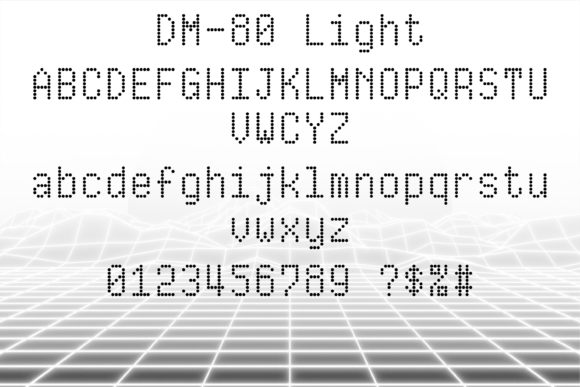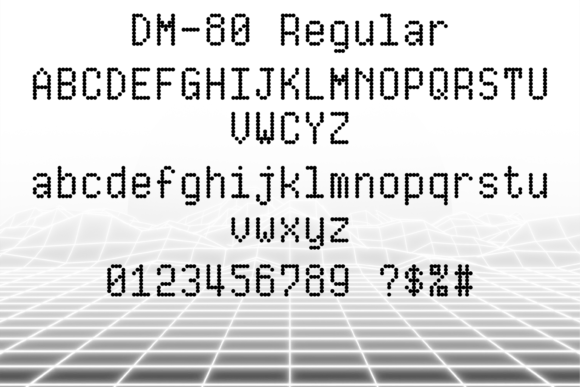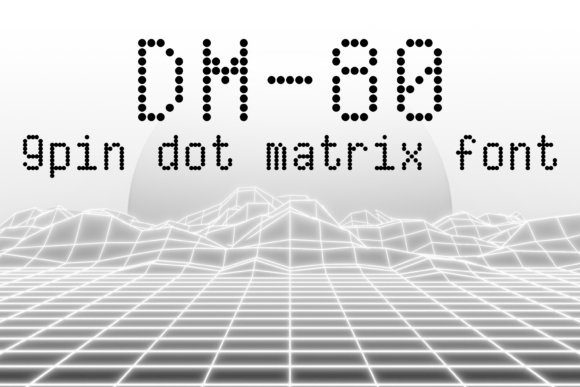
Introducing DM-80 Font: The Ultimate Retro Dot Matrix Printer Emulation
Are you a designer or crafter looking to add a touch of nostalgia to your projects? Do you want to create designs that evoke the feeling of old office documents from the 80s and 90s? Look no further than the DM-80 font, a monospaced font that perfectly emulates the look of a 9-pin dot matrix printer.
What is DM-80 Font?
DM-80 is a carefully crafted font that mimics the characteristics of a 9-pin dot matrix printer, commonly used in old office settings. It comes in two weights, regular and light, allowing you to choose the perfect variation for your design needs. The font features all basic ASCII characters, ensuring that you have everything you need to create authentic-looking retro designs.
Key Features of DM-80 Font
- Monospaced: DM-80 is a monospaced font, meaning that each character takes up the same amount of space. This feature is essential in emulating the look of a dot matrix printer.
- Two Weights: The font comes in two weights: regular and light. This allows you to choose the perfect variation for your design, whether you need a bold statement or a subtle hint of retro flair.
- ASCII Characters: DM-80 features all basic ASCII characters, ensuring that you have everything you need to create authentic-looking retro designs.
Uses of DM-80 Font
DM-80 font is perfect for designers and crafters who want to add a retro touch to their projects. Here are some ideas for using DM-80:
- Retro-themed designs: Use DM-80 to create designs that evoke the feeling of old office documents, such as invoices, receipts, or memos.
- Vintage-style posters: Add a touch of nostalgia to your posters with DM-80 font, perfect for promoting retro-themed events or products.
- Packaging design: Use DM-80 to create labels or packaging that looks like it was printed on a dot matrix printer.
- Digital art: Incorporate DM-80 into your digital art, such as pixel art or graphic designs, to add a retro flair.
Tips for Using DM-80 Font
Here are some tips for getting the most out of DM-80 font:
- Experiment with sizes: DM-80 font looks great at various sizes, so experiment with different sizes to find the perfect fit for your design.
- Combine with other fonts: Pair DM-80 with other fonts to create a unique and interesting design. Try pairing it with a sans-serif font for a bold contrast.
- Pay attention to spacing: As a monospaced font, DM-80 requires careful attention to spacing. Make sure to adjust the spacing to create a clean and authentic look.
DM-80 font is a unique and versatile font that is perfect for designers and crafters looking to add a retro touch to their projects. With its monospaced design, two weights, and ASCII characters, DM-80 is the ultimate emulation of a 9-pin dot matrix printer. Whether you’re creating retro-themed designs, vintage-style posters, or digital art, DM-80 font is sure to bring a touch of nostalgia and authenticity to your work.